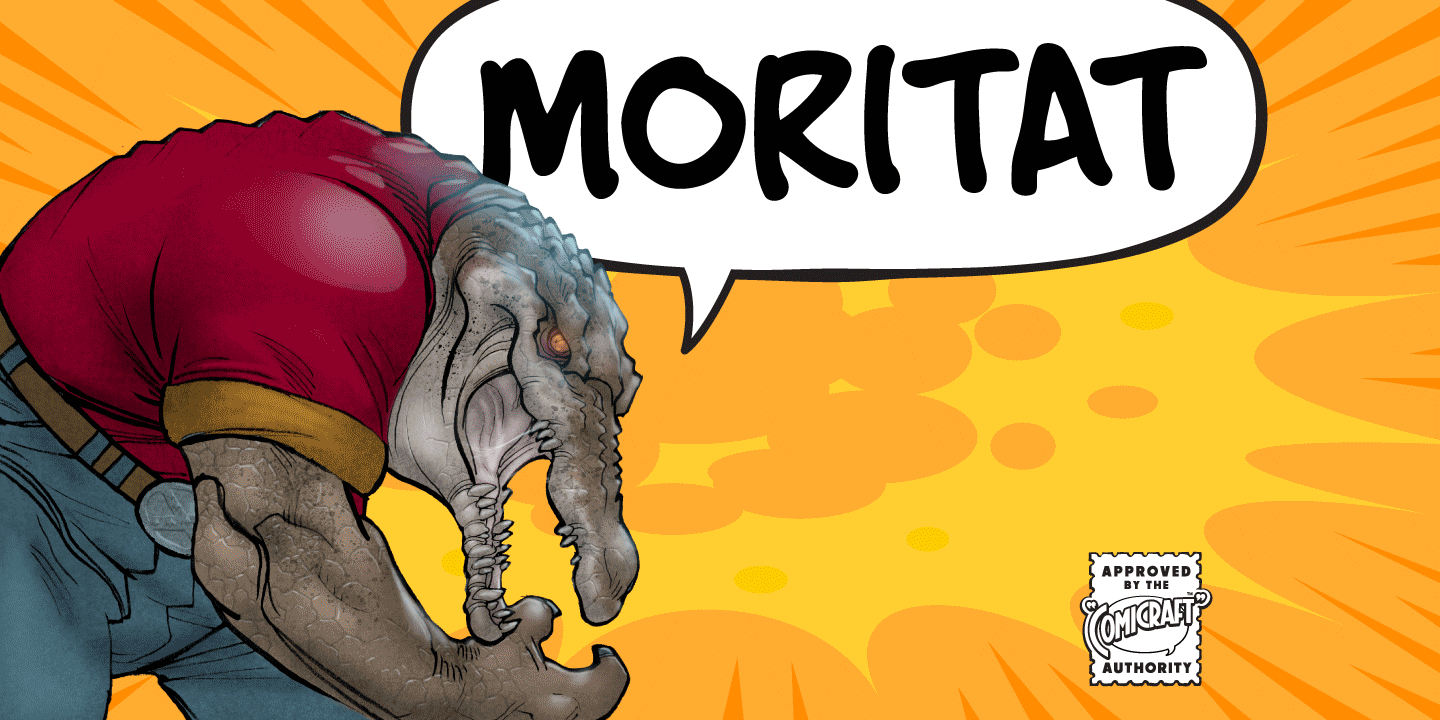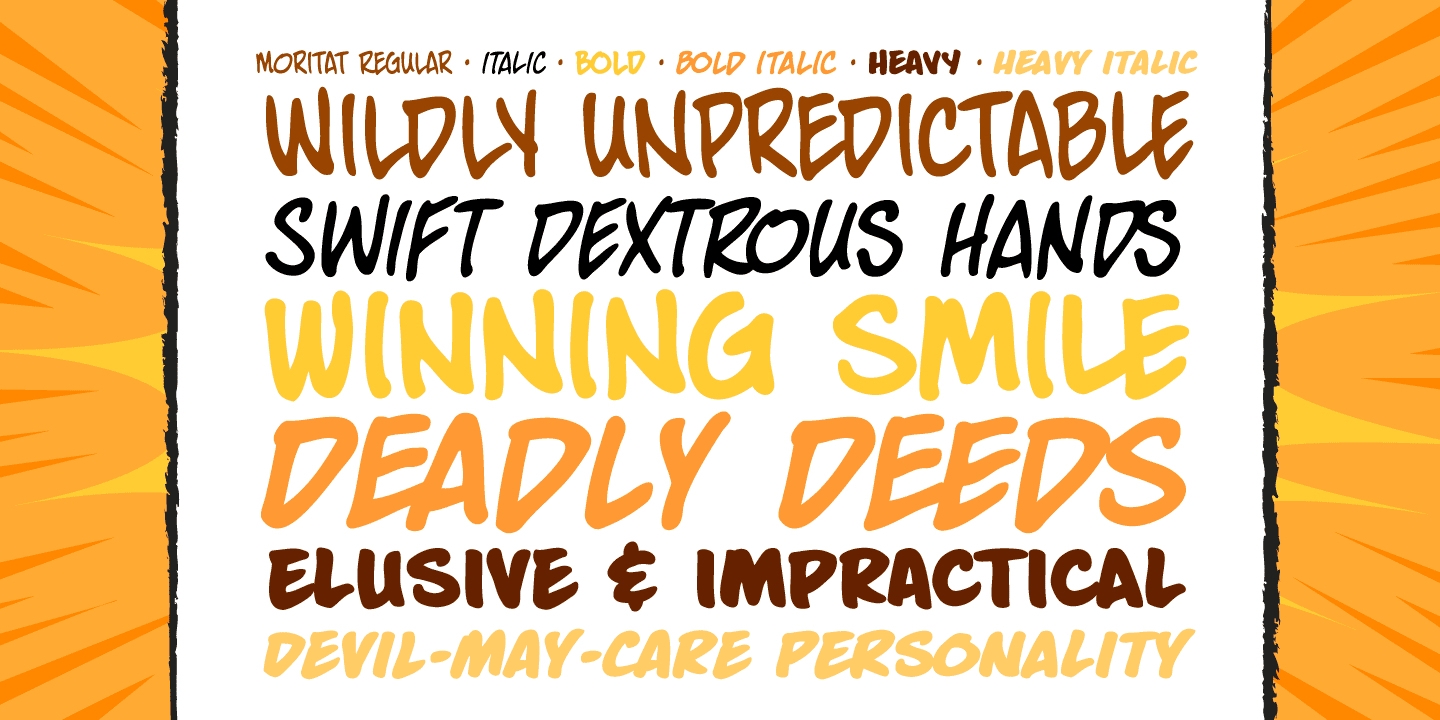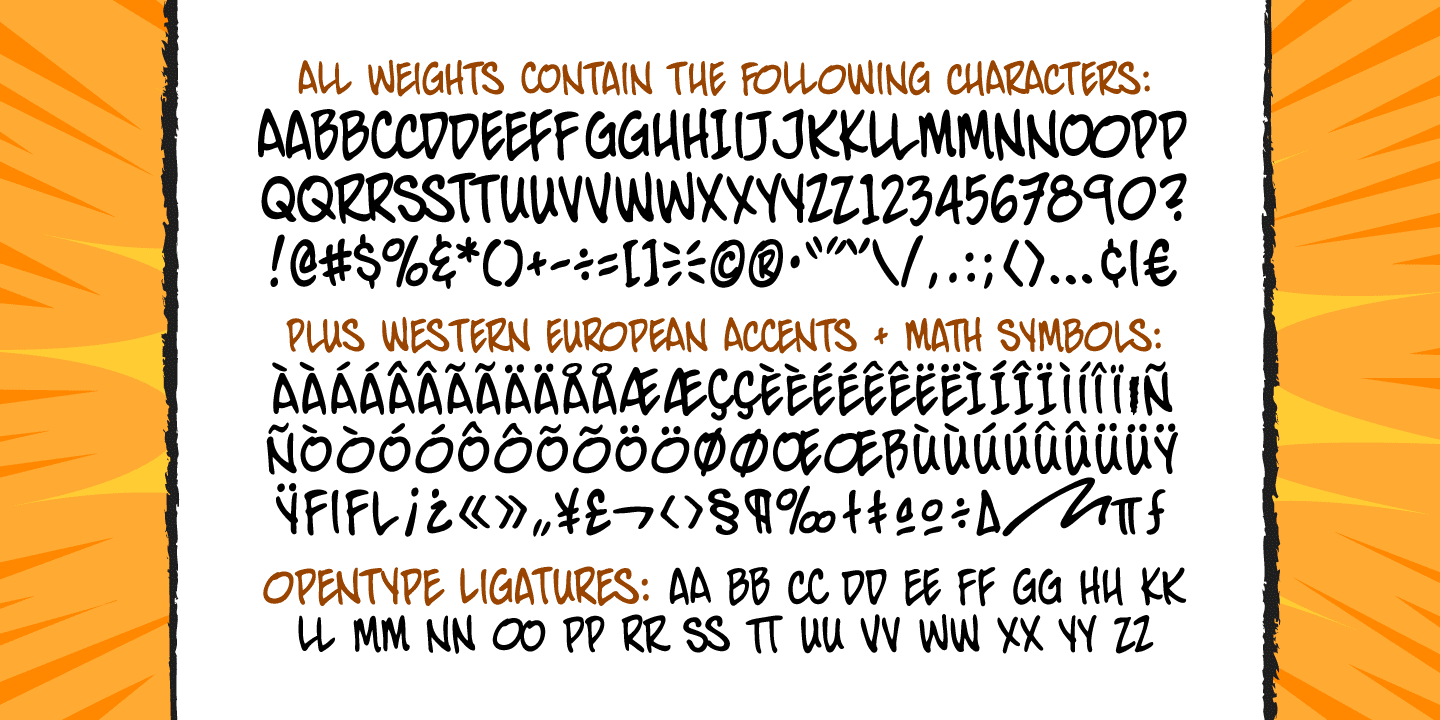
Moritat
Font Family by Comicraft Fonts
It's unpredictable! It's enigmatic! It has a winning smile and a devil-may-care personality. It can be charming and obliging and yet also elusive and impractical. It is the doer of deadly deeds, it is the dextrous hand of ELEPHANTMEN artist Justin Norman. It is swift and decisive, hesitant but packed with Talent. Ladies and... uh, More Ladies... Moritat has entered the building.
Oh, sorry -- actually Moritat has LEFT the building.